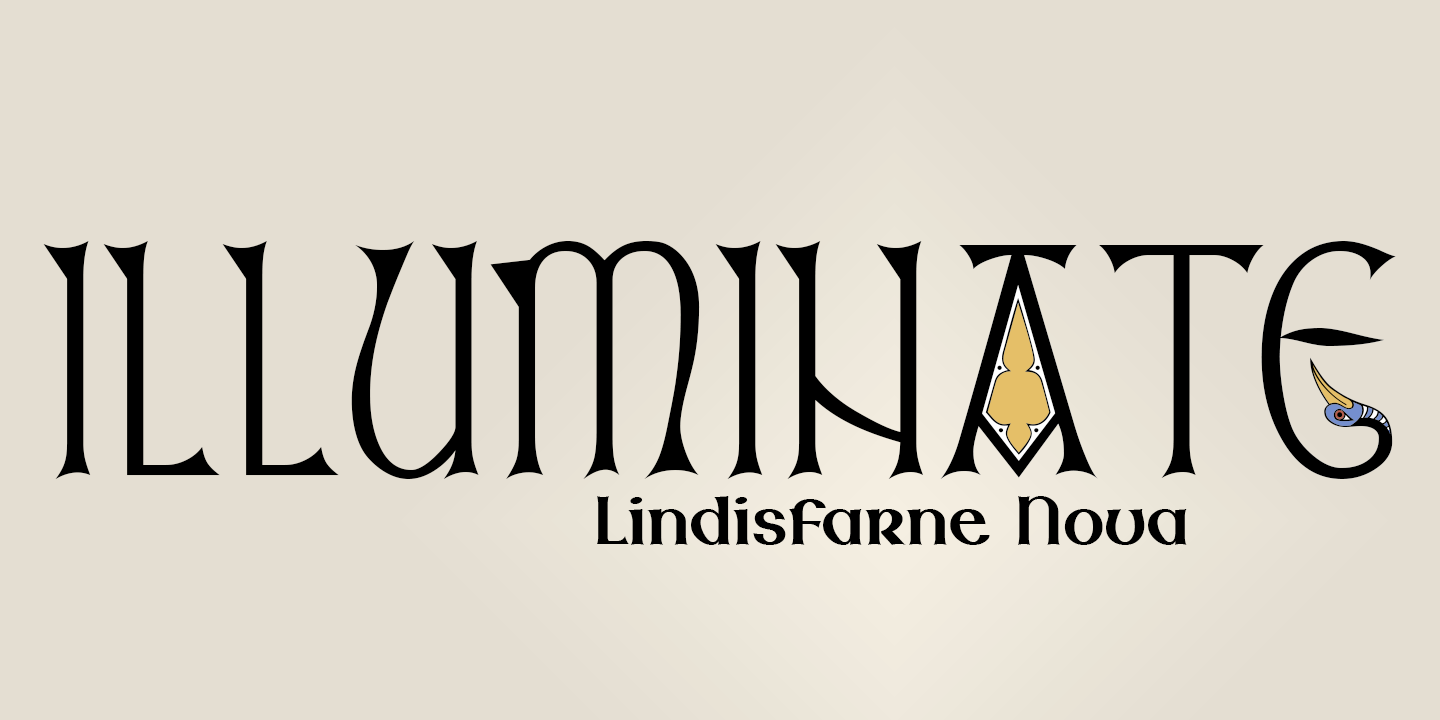
Lindisfarne Nova BT Font is ideal for medieval manuscripts, Celtic-themed designs, historical fiction book covers, fantasy game interfaces, monastery publications, traditional wedding invitations, ancient script reproductions, illuminated text projects, heritage museum displays, and spiritual meditation materials.
What makes Lindisfarne Nova BT Font exciting is its authentic revival of ancient Celtic calligraphy that transports readers back to the sacred scriptoriums of medieval monasteries. This mystical typeface captures the spiritual essence of illuminated manuscripts with its distinctive letterforms inspired by the legendary Lindisfarne Gospels, creating an immediate connection to centuries of religious and cultural heritage. The font's sacred character transforms ordinary text into extraordinary spiritual experiences.
Lindisfarne Nova BT Font family includes regular weight with comprehensive character sets featuring traditional Celtic letterforms and decorative elements. The typeface maintains historical authenticity while providing modern functionality, including extended punctuation and special characters that support contemporary publishing needs for historical and spiritual content.
Designers and publishers choose Lindisfarne Nova BT Font Free Download for projects requiring authentic medieval atmosphere and spiritual gravitas. This remarkable typeface represents the pinnacle of Celtic typography revival, combining meticulous historical research with contemporary digital craftsmanship. The carefully preserved ancient proportions ensure that every application carries the sacred weight of monastic tradition, making it essential for religious institutions, historical societies, and creative projects seeking to honor Celtic and medieval heritage.